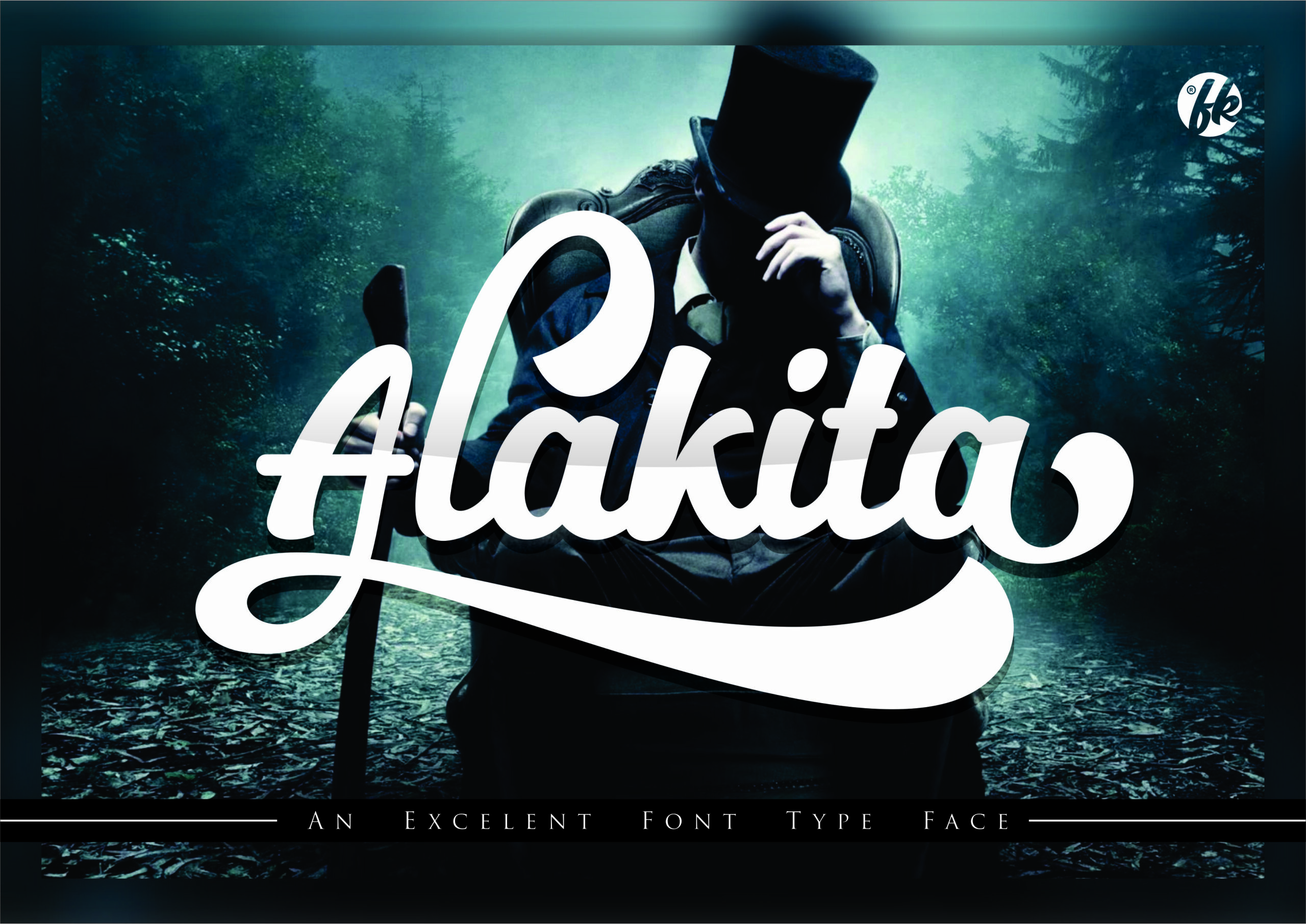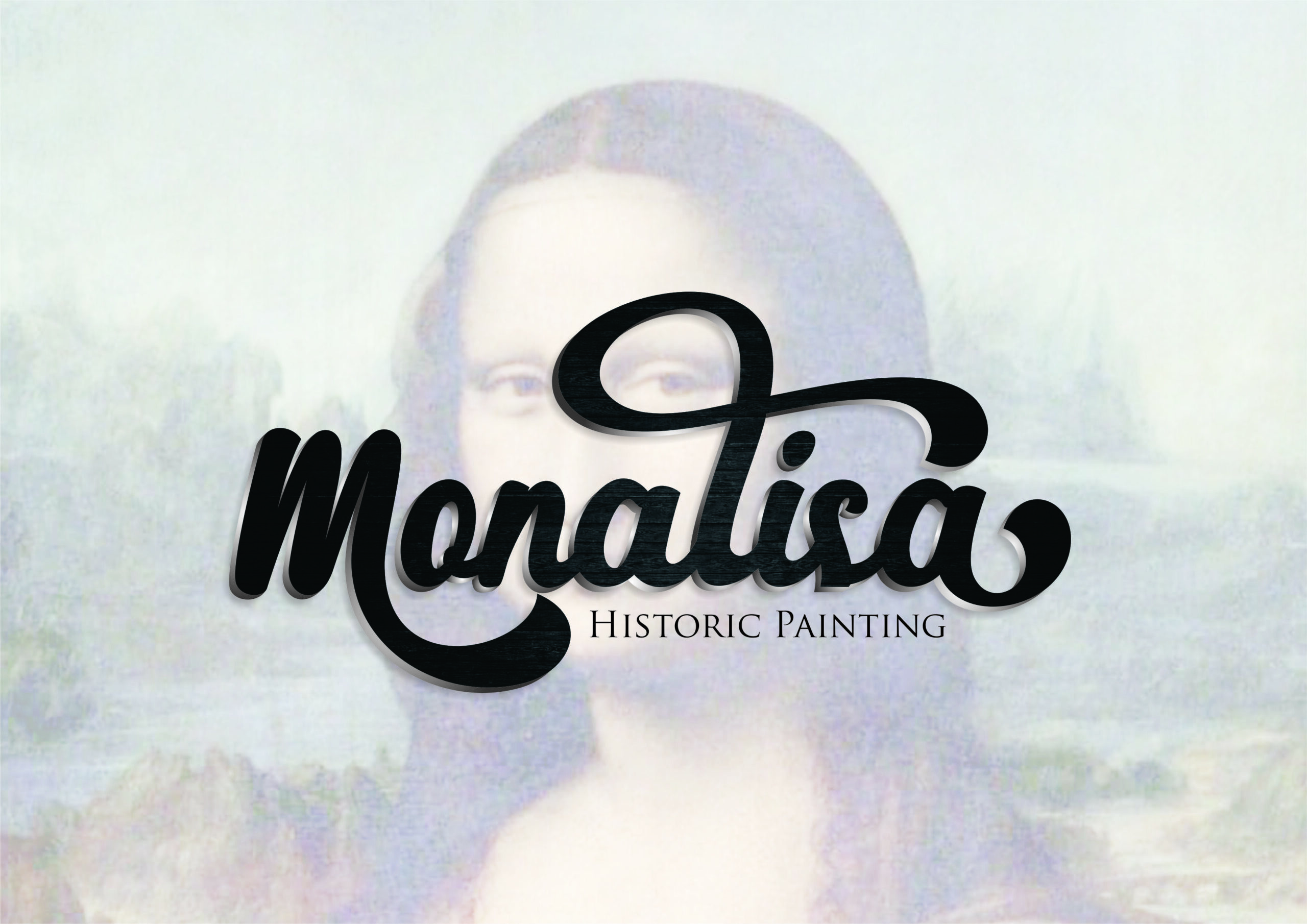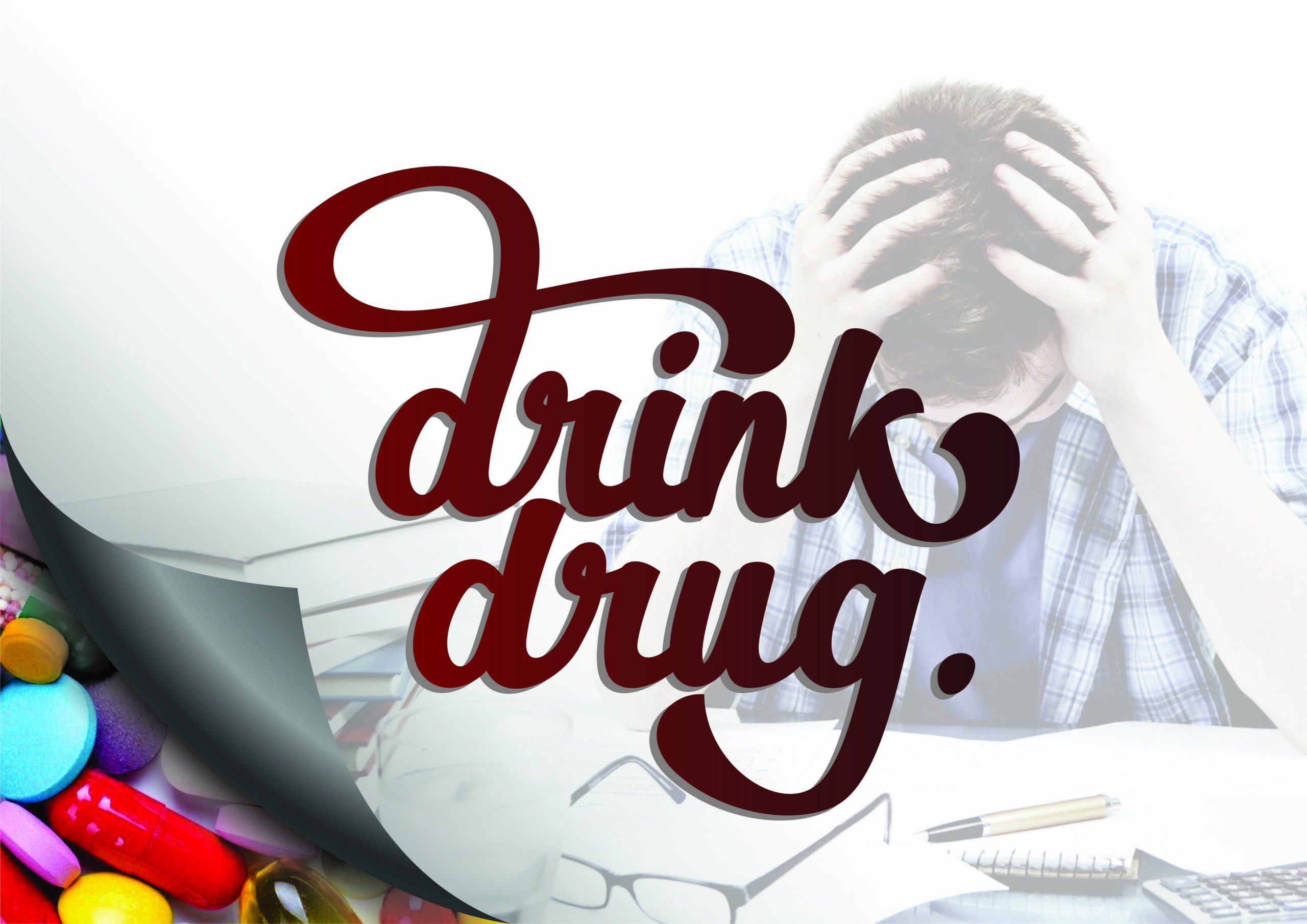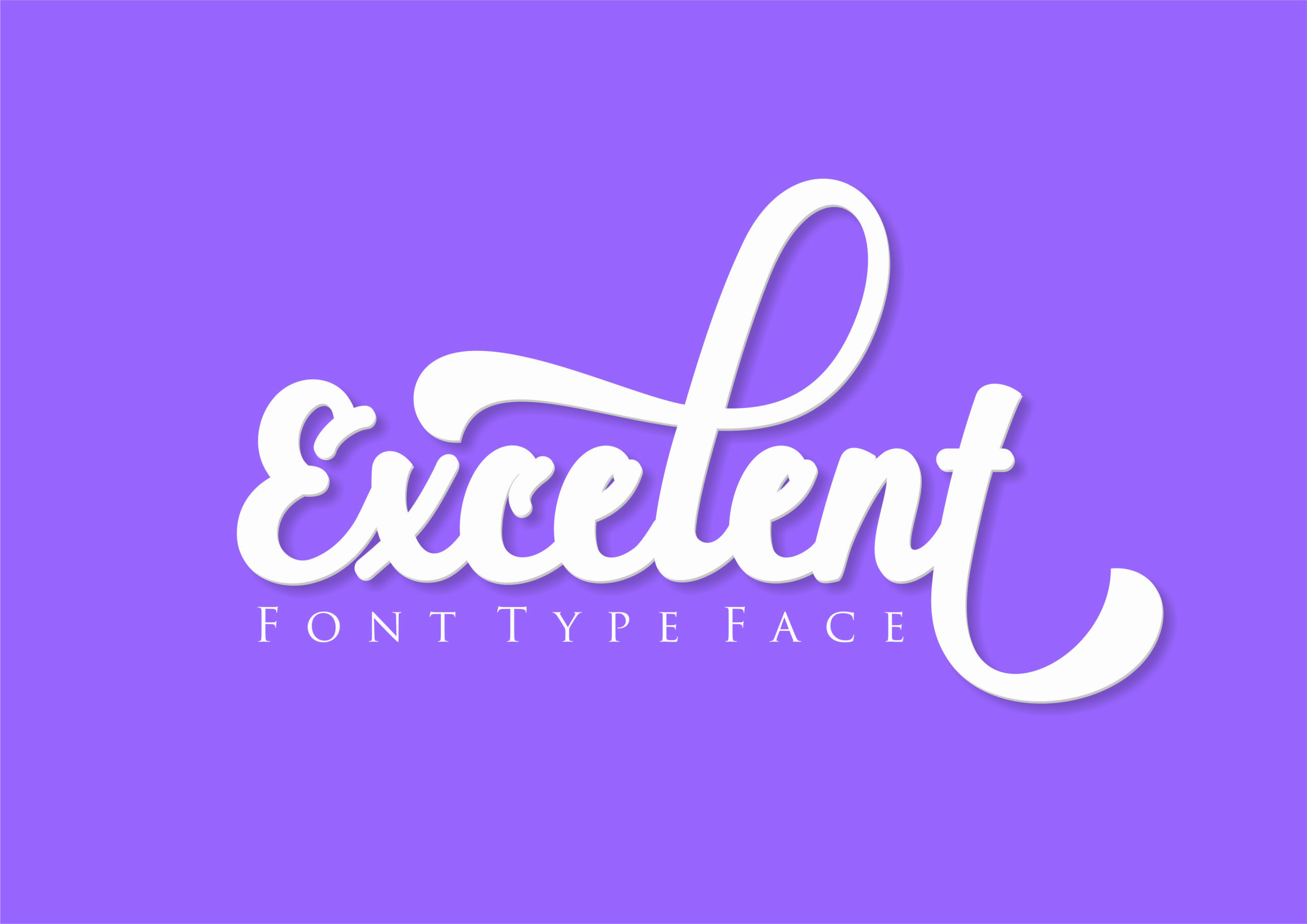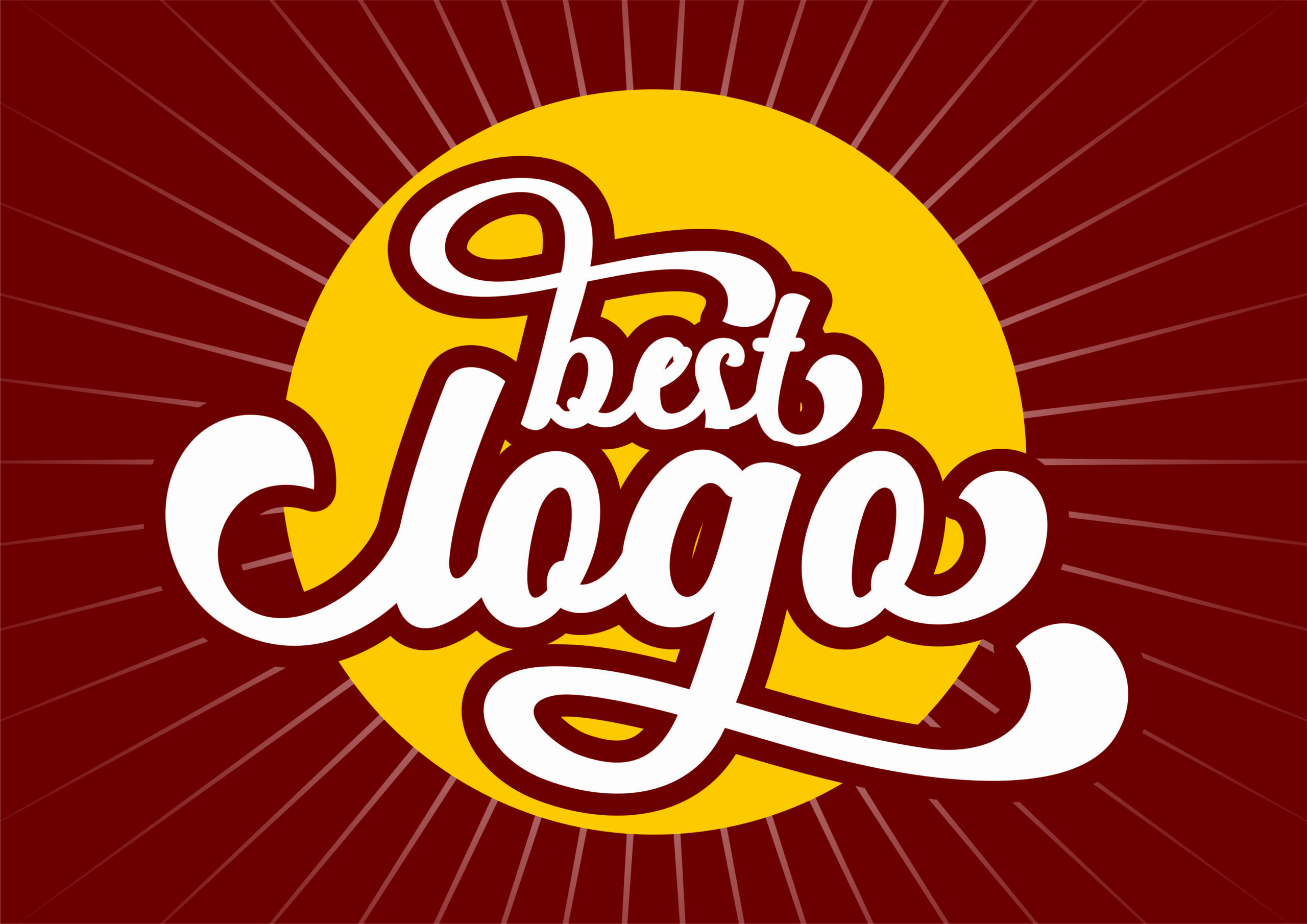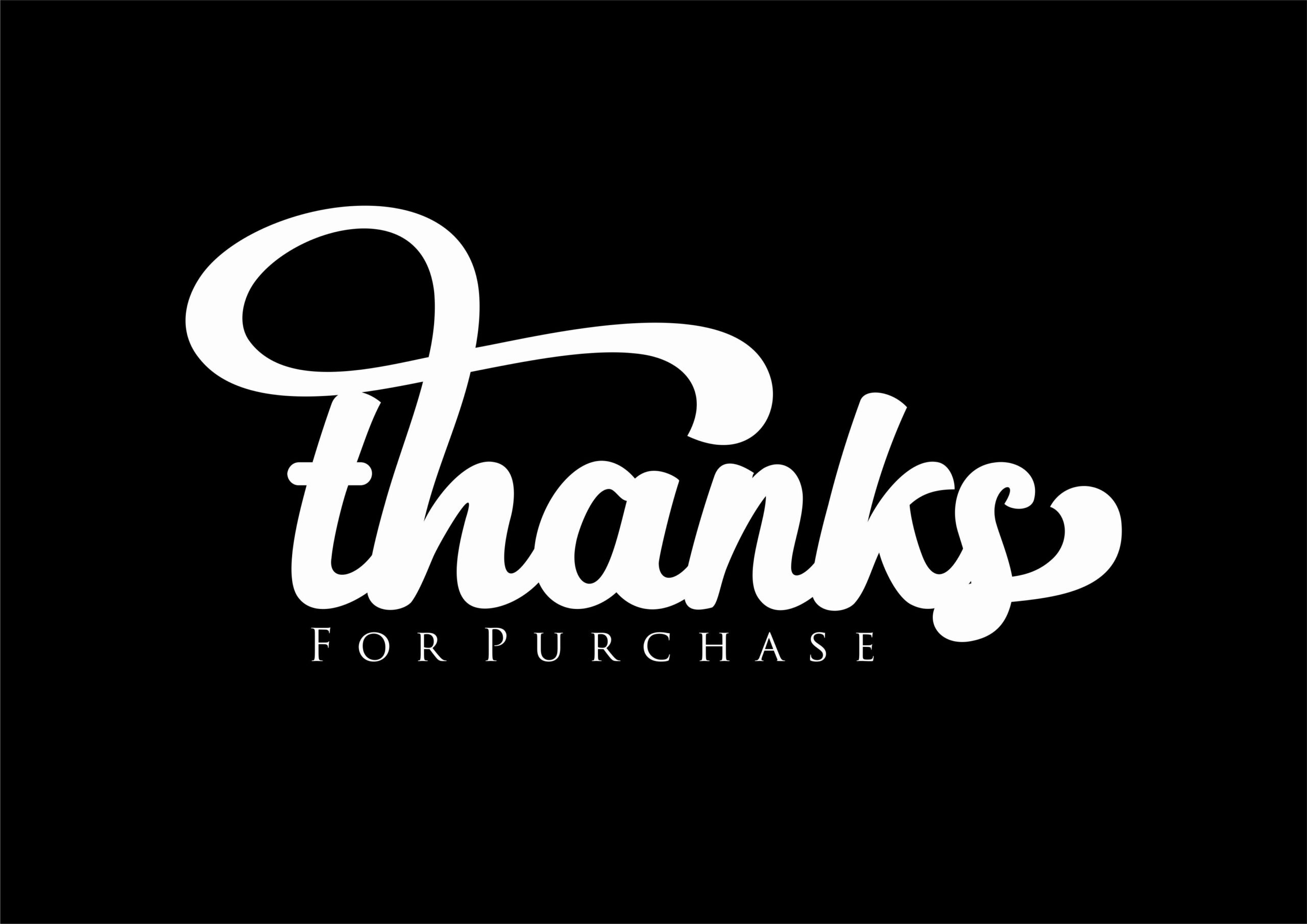
Alakita Font
About Alakita Font
Alakita is a jawdropping script font. This font is gorgeous and comes with several glyph options per character, giving you the ability to customize your typography across a wide range of projects.